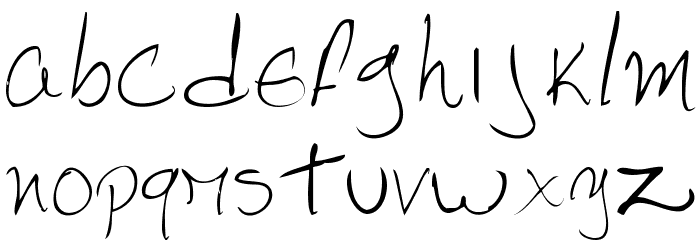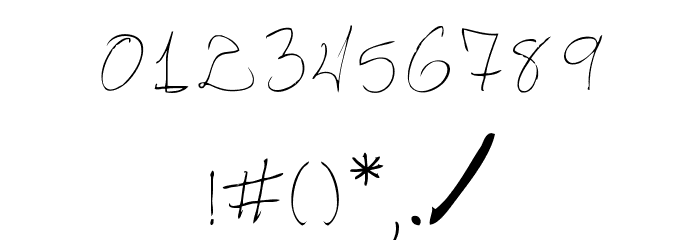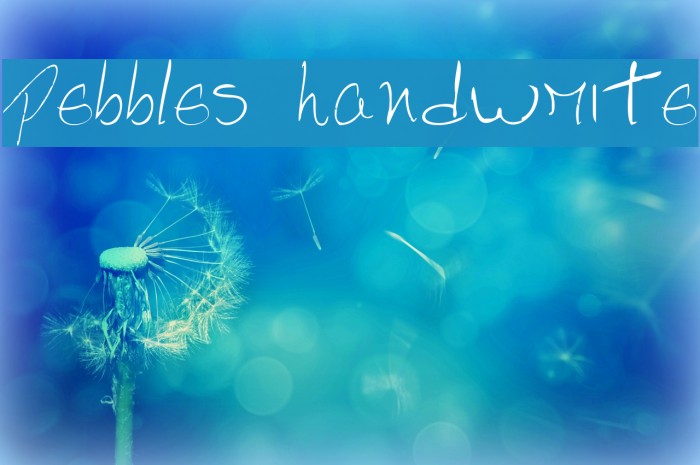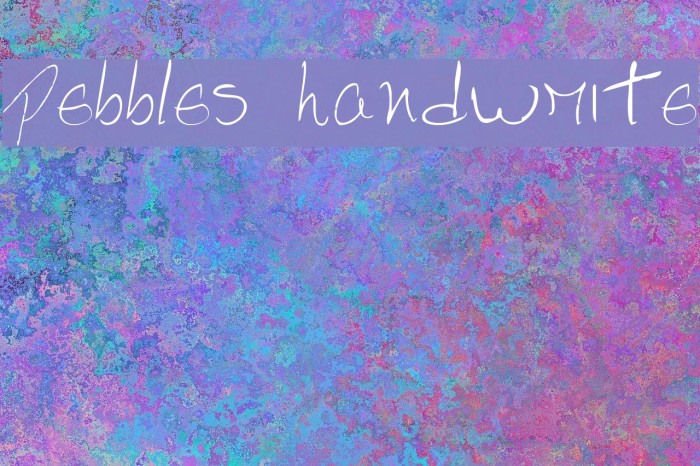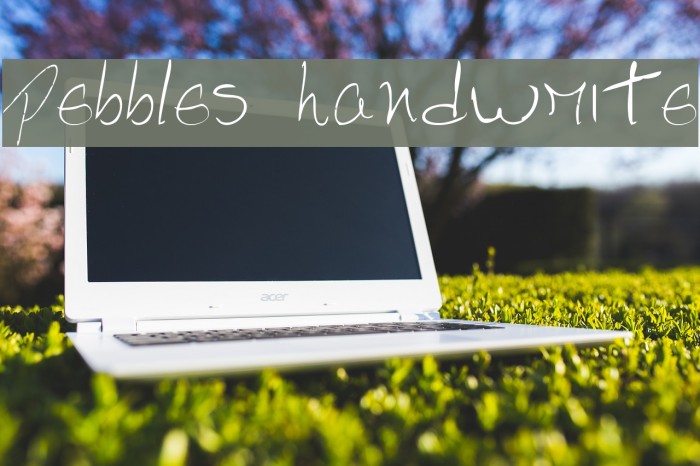
Pebbles handwrite Font
This font features a playful and organic handwritten style, characterized by its fluid and irregular strokes. The uppercase letters have a whimsical and slightly exaggerated form, while the lowercase letters maintain a more consistent flow. The numbers and special characters complement the overall aesthetic with their casual and approachable design. The font's uneven baseline and varied stroke widths contribute to its informal and friendly appearance, making it ideal for projects that require a personal touch.
A playful and organic handwritten font with fluid, irregular strokes.
- Proposed Projects: Ideal for greeting cards, personal notes, invitations, and creative branding projects.
- Category: Handwritten
- Overall Style: Casual
- Use Case: Headlines, Logos, Invitations